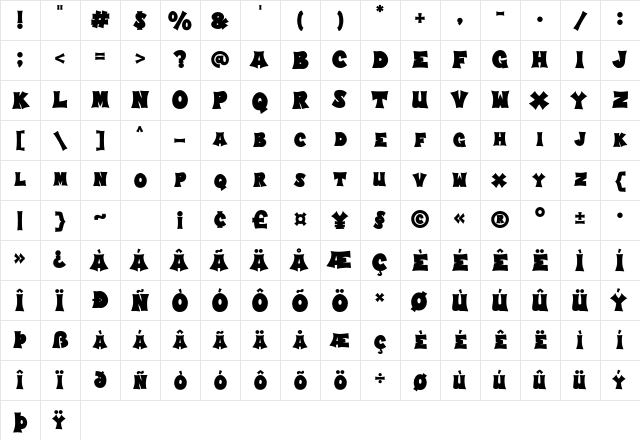
Graffiti Skater - Demo Version Regular
Foundry: Nirmana Visual
Designer: Sigit Dwipa Raharjo
Design Context for Graffiti Skater - Demo Version
Graffiti Skater - Demo Version is a composed and adaptable typeface that performs quietly and consistently across a wide range of design contexts.